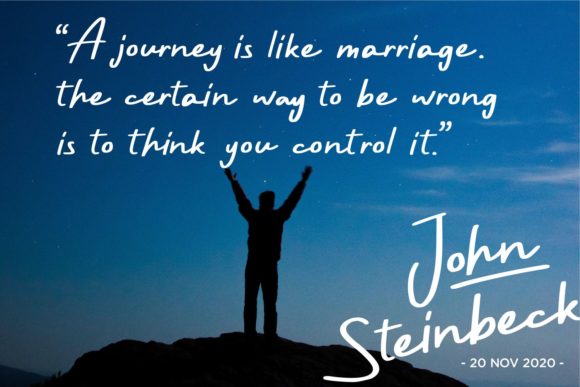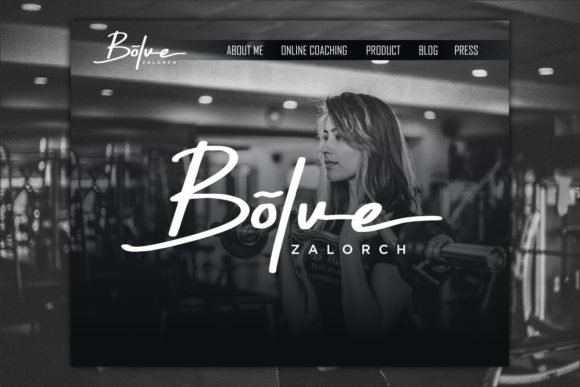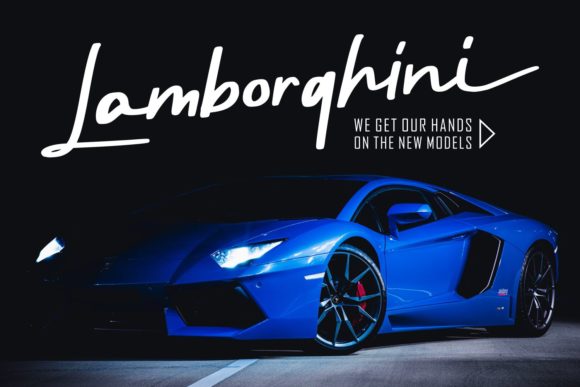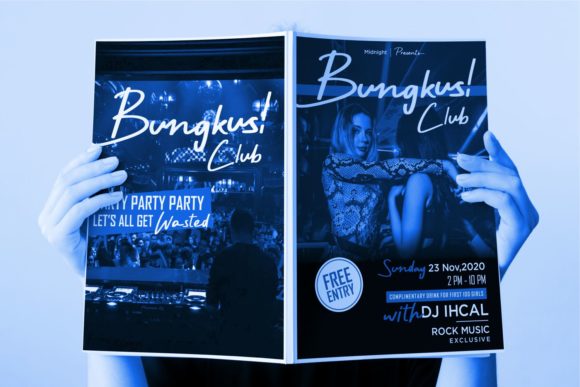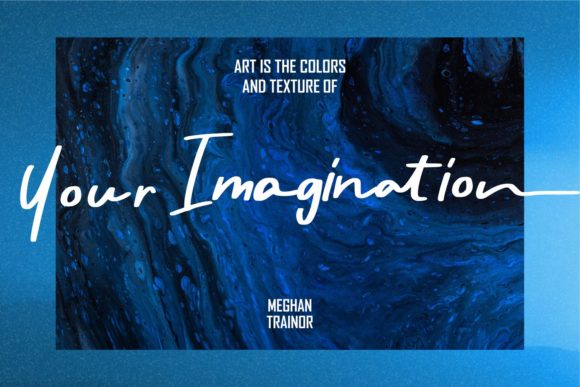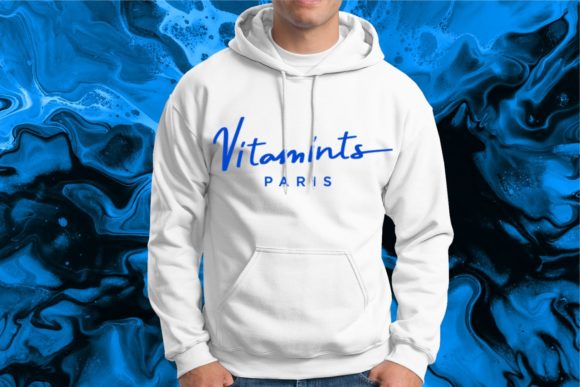
Introduction to Rayleigh Font
As a designer, have you ever stumbled upon that perfect brush stroke in a design project, and it just brings everything together? For me, that moment happened when I discovered the Rayleigh Font. Its unique and beautiful touch makes any design come alive, and I just couldn’t get enough of it!
But what makes the Rayleigh Font so special? It’s a free download that offers a high-quality design resource for any creative project. With its transparent background, it’s easy to layer and combine with other design elements, giving you endless possibilities for your next design challenge. Whether you’re a seasoned designer or just starting out, the Rayleigh Font is a valuable addition to your design toolkit.
So, let’s dive into the world of the Rayleigh Font and explore its features, uses, and why it’s a must-have for any designer looking to add a personal touch to their work.
Key Features of Rayleigh Font
- High-quality design resource with a beautiful, elegant script style
- Unique characteristics: ornate flourishes, classic calligraphy style, and versatile font pairing options
- Perfect for creative projects, including invitations, greeting cards, and wedding stationery
Honest Review: Rayleigh Font
As a designer, I’m always on the lookout for high-quality fonts that can elevate my creative projects. Recently, I had the chance to try out the Rayleigh Font, and I must say, it’s a great addition to my design resource library.
Here are some things that work well with the Rayleigh Font:
- ✨ High quality design: The font is crisp and clear, making it perfect for both digital and print projects.
- ✨ Transparent background: The font’s transparent background makes it easy to combine with other design elements.
- ⚠️ Limited character set: The font only includes a limited set of characters, which can be a problem for designers who need to work with multiple languages.
- ⚠️ Not suitable for body text: While the font looks great for headings, it’s not ideal for body text due to its large size and ornate design.
Overall, I’m impressed with the Rayleigh Font’s design and quality. While it has some limitations, it’s a great choice for designers who need a high-quality font for creative projects.
How to Use Rayleigh Font
The Rayleigh Font is a high-quality design resource that can elevate any creative project. With its elegant and sophisticated design, it’s perfect for various applications, from logos to typography-based designs.
To get the most out of the Rayleigh Font, use it in conjunction with a transparent background to create a seamless design. Experiment with different font sizes, colors, and combinations to achieve a unique look.